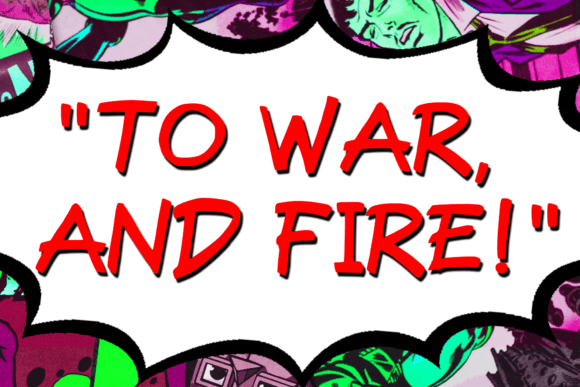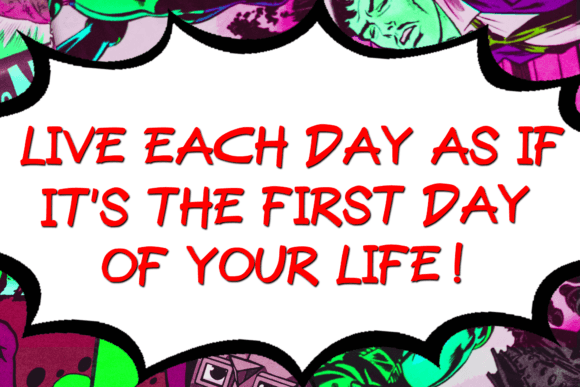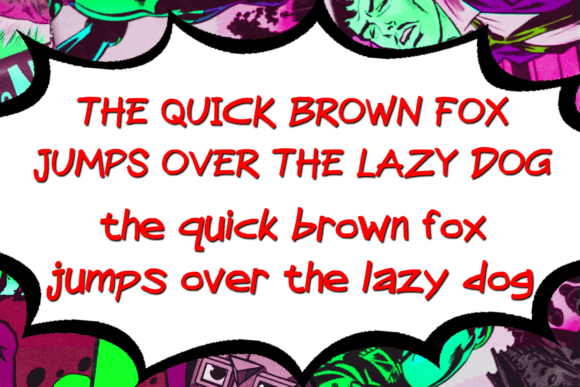
Bring Your Designs to Life with the Ultimate Handwritten Font
Have you ever sat down with a blank sheet of paper and a pen, waiting for inspiration to strike? That’s the moment when creativity takes over, and the possibilities seem endless. As a designer, you’ve likely experienced that spark of imagination, and it’s precisely what makes the Action Comic 2.0 Font so special.
This energetic and expressive handwritten font is a game-changer for designers looking to add a casual touch to their projects. With its incredibly versatile style, you can use it for anything from t-shirts and kids’ book designs to greeting cards and stickers. The new version of Action Comic 2.0 Font even includes support for English, French, German, Italian, and Spanish, making it a valuable asset for designers working on international projects.
- Unique Character Set: Includes a wide range of comic book-inspired characters, including bold, italic, and cursive styles
Action Comic 2.0 Font Review
I recently had the chance to work with the Action Comic 2.0 Font, and I’m excited to share my honest review with you.
- Dynamic feel: The font has a dynamic feel that’s perfect for action-packed comics, video games, and even movie titles.
- Variety of styles: The font comes in different styles, from bold and edgy to sleek and modern, giving you plenty of options to choose from.
- Legibility: The font is highly legible, even at small sizes, making it perfect for digital use.
- Not ideal for body text: While the font is perfect for titles and headlines, it’s not the best choice for body text due to its bold and attention-grabbing nature.
- Limited customization: While the font has some customization options, it’s not as extensive as some other fonts in its category.
Overall, I think the Action Comic 2.0 Font is a great addition to any designer’s toolkit. It’s perfect for projects that require a bold, attention-grabbing font, but may not be the best choice for more subtle or text-heavy projects.
Tips for Getting the Most Out of Action Comic 2.0 Font
For the best results:
– Use bold and italic styles to add emphasis.
– Experiment with different font sizes to create visual hierarchy.
– Pair with complementary colors to enhance readability.
Action Comic 2.0 Font is ideal for:
– Comic book-style illustrations.
– Graphic novels.
– Superhero-themed designs.
– Action-packed posters and flyers.
Alternatives to Action Comic 2.0 Font
Comparison: Comic Sans MS has a more rounded and childlike feel compared to Action Comic 2.0 Font, which is more aggressive and bold. Action Comic 2.0 Font has a more dynamic feel, making it better suited for action-packed comics.